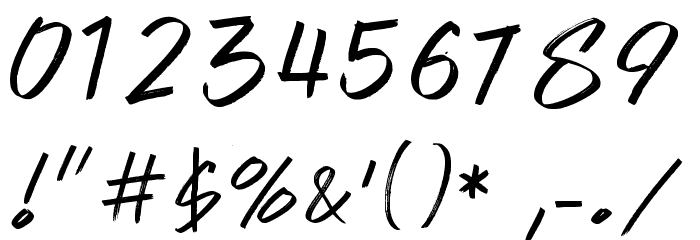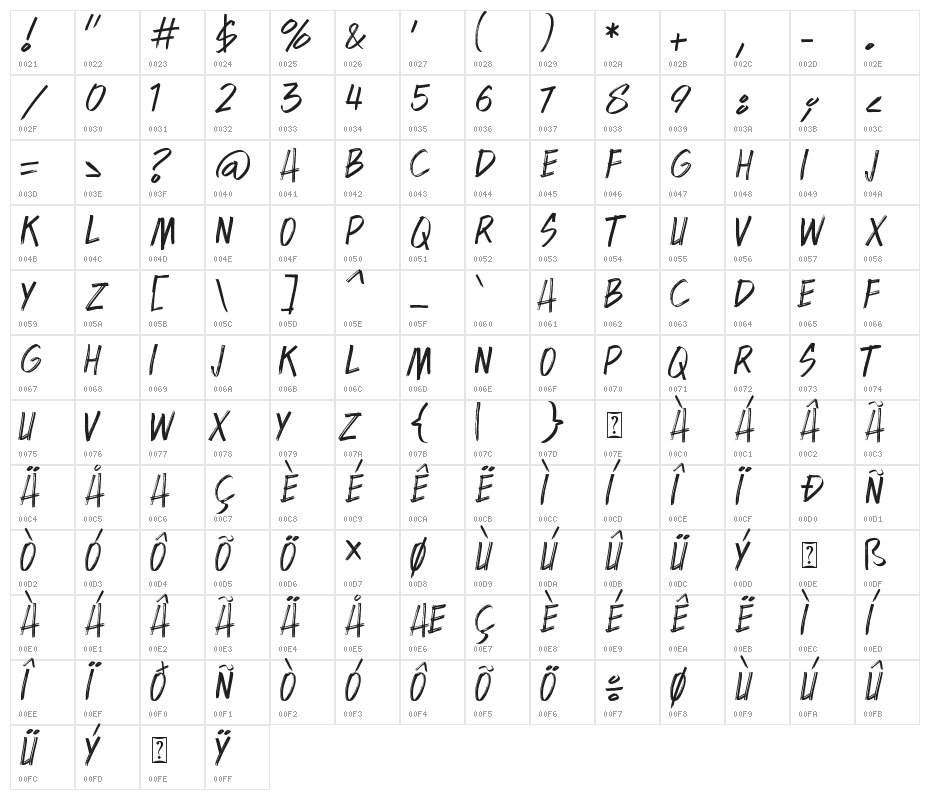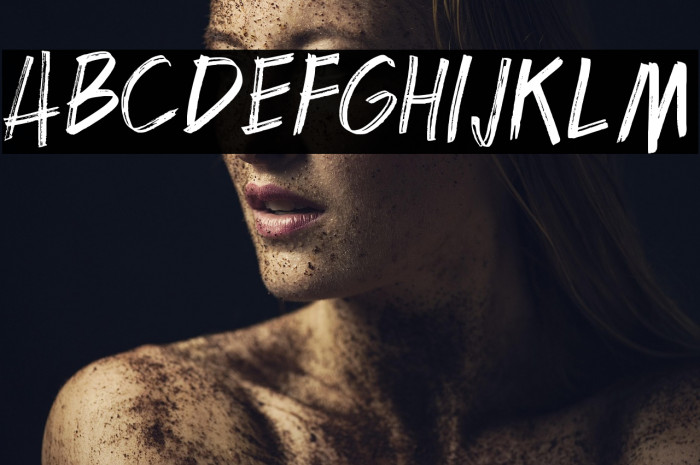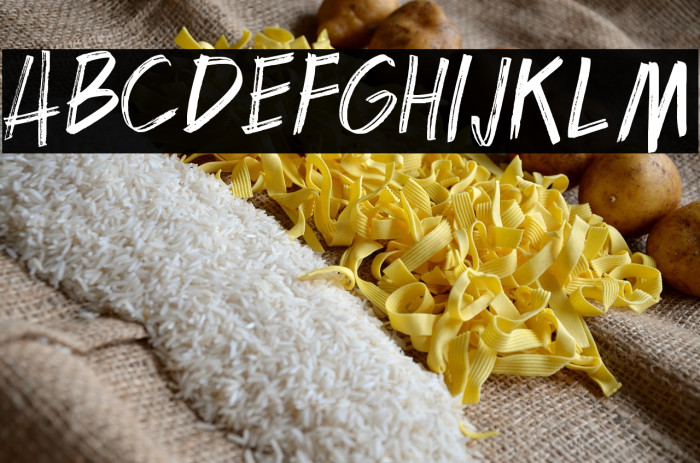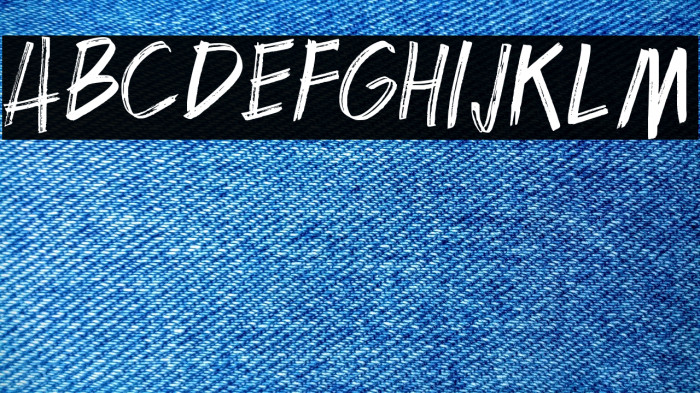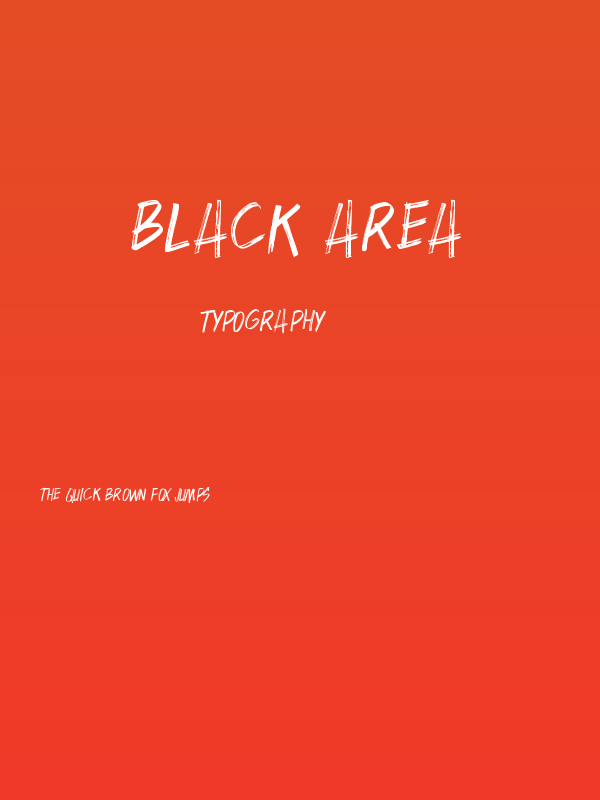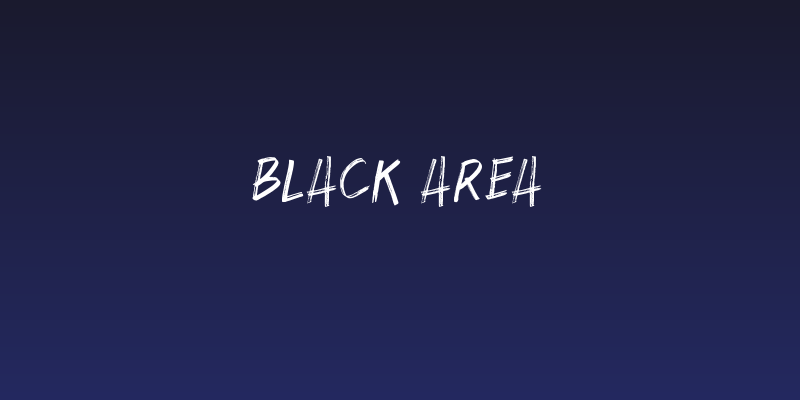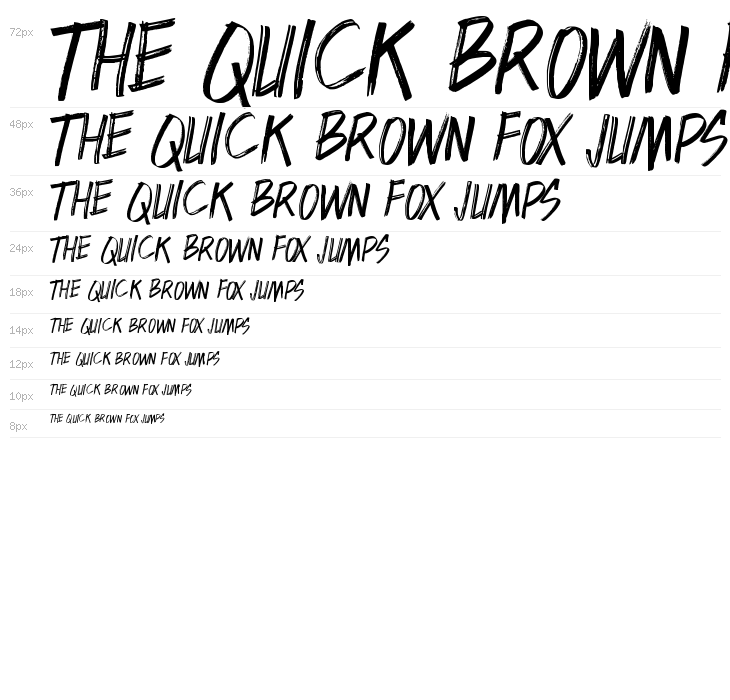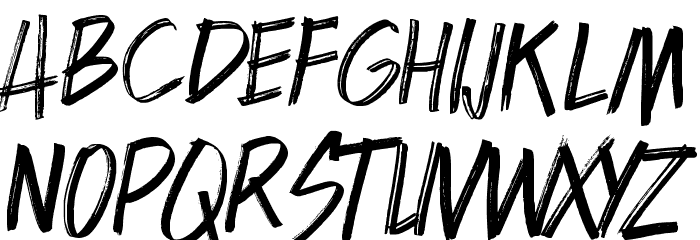
BLACK AREA Font
BLACK AREA Description
This font exhibits a bold, energetic style with a hand-drawn appearance. The letters are characterized by their dynamic, brush-like strokes, giving them a raw and expressive feel. The uppercase and lowercase letters maintain a consistent style, with sharp angles and a slightly irregular baseline that adds to the font's lively personality. The numbers and special characters follow the same aesthetic, ensuring a cohesive look across all glyphs. This font's unique style makes it stand out, offering a sense of movement and creativity.
| Proposed Projects | Ideal for projects that require a dynamic and creative touch, such as posters, album covers, branding for artistic ventures, or any design needing a bold statement. |